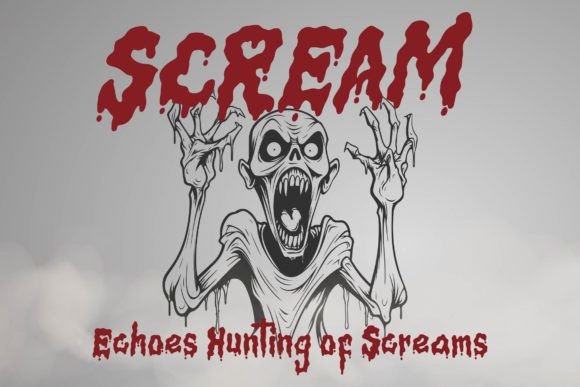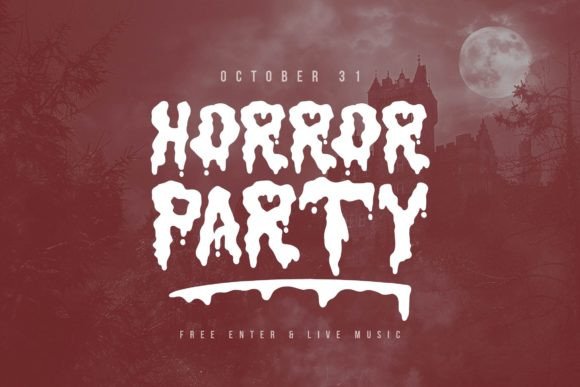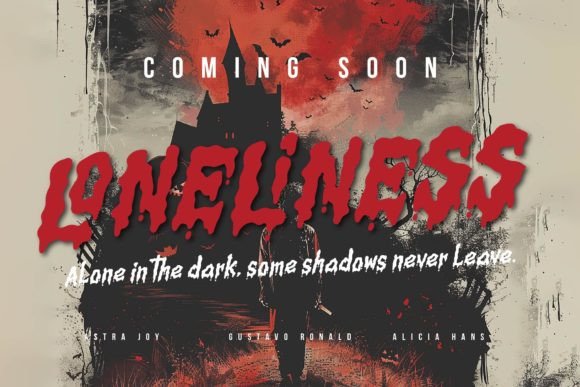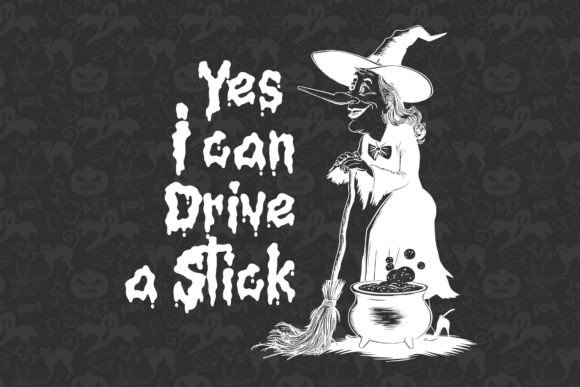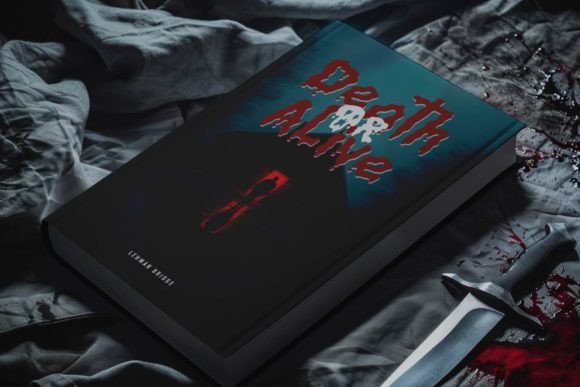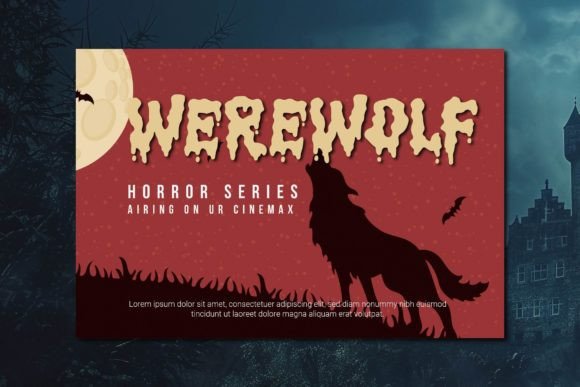
Introduction to Nocturnus Sigil Font
Nocturnus Sigil is a spooky horror font with letters that look like they’re dripping with blood.
It’s perfect for making scary posters, Halloween invitations, and creepy decorations .
Key Features of Nocturnus Sigil Font
Why Choose Nocturnus Sigil Font?